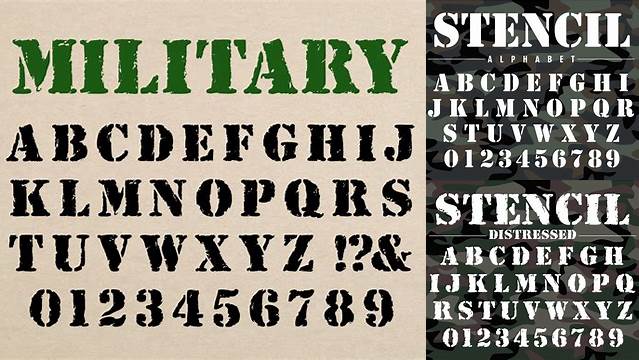
Free Military Stencil Font Generator: Create Bold Designs
Hey everyone! Ever wanted to create designs that have that awesome, rugged military look? Well, you're in luck! We're diving deep into the world of the free military stencil font generator, a super cool tool that lets you make eye-catching text for all sorts of projects. Whether you're designing a poster, crafting a unique logo, or just messing around for fun, these generators are your go-to resource. Let's explore how you can easily use these tools and get creative with some killer military-style fonts. Get ready to unleash your inner designer and make some seriously cool stuff!
H2: Understanding Military Stencil Fonts and Their Appeal
Alright, so first things first, what exactly is a military stencil font? Think about those iconic signs and markings you see on military equipment, vehicles, and even buildings. That's the vibe! These fonts are designed with cut-out sections, making them easy to read even when stenciled or spray-painted. They're all about functionality, clarity, and that distinct, no-nonsense aesthetic. The appeal is huge! They're instantly recognizable and evoke a sense of strength, precision, and a bit of old-school coolness. Military stencil fonts have found their way into all kinds of design, from branding and advertising to personal projects and DIY crafts. They're a fantastic way to add a touch of ruggedness and authority to your work. The history behind these fonts is pretty interesting, too. They were born out of the need for durable and easily reproducible markings in the field. Today, that same practicality makes them perfect for everything from creating custom t-shirts to designing websites with a bold, unique edge. Imagine the possibilities! From creating compelling posters to designing personalized gifts. These fonts are incredibly versatile. So, why are they so popular? It's the blend of functionality, style, and history that makes them a winner. If you're looking to add a touch of grit and personality to your designs, military stencil fonts are the way to go.
H3: The History and Evolution of Stencil Fonts
Let's take a trip back in time, shall we? The story of stencil fonts is deeply intertwined with the military. Back in the day, when technology was simpler, the need to quickly and accurately mark equipment and supplies was paramount. Stencils were the solution. These weren't just any fonts; they were specifically designed to be easily replicated using stencils. This meant cut-out sections in the letters, making them ideal for spray-painting or applying ink through a stencil. The evolution of these fonts is fascinating. Early versions were very functional, designed for speed and clarity. As time went on, designers began experimenting with different styles, adding personality and flair. These weren't just about practicality anymore; they were about visual impact. Think about the different variations. You’ve got your classic, bold stencil fonts and also more stylized versions with unique shapes and details. Military stencil fonts have even influenced other design fields, becoming popular in areas like street art, graphic design, and even fashion. They've been reinterpreted and reimagined for contemporary designs. The history of these fonts reveals a lot about how design adapts to needs and trends. The modern popularity of these fonts shows how they've moved from strictly functional tools to design staples, appreciated for their distinctive look and versatility. From military bases to modern design studios, the story of the stencil font is an awesome example of how something created for one purpose can evolve and find new life in the world of art and design.
H2: Exploring the Features of a Free Military Stencil Font Generator
Okay, so now that you know what military stencil fonts are, how do you actually use one? That's where a free military stencil font generator comes in! These online tools are designed to make the process super easy. You just type in your text, choose your preferred font style, and the generator does the rest. The features vary from generator to generator, but most offer a range of customization options. You can often adjust the font size, spacing, and even the thickness of the lines. Some generators also let you select from different stencil styles, like single-line or double-line. Imagine the possibilities. You could experiment with different fonts until you get the perfect look. The beauty of these generators is their user-friendliness. They're usually web-based, so you don't need to download any software. The best ones offer a preview of your text, so you can see exactly how it will look before you download it. This lets you tweak things until you're completely satisfied with the result. Generators often provide different file formats for your designs like PNG, JPG, or SVG. Having those options means you can use your stencil fonts in a lot of different projects. Whether you need to add a special touch to your website or print a poster, these features have you covered. These features are fantastic for both beginners and pros. The tools are straightforward to use, so anyone can create fantastic designs. If you need to create something bold and eye-catching, a free military stencil font generator is your best friend.
H3: Key Customization Options to Look For
When choosing a free military stencil font generator, what should you look for? Customization is key! The best generators give you plenty of options to tailor your text to your exact needs. First off, font size is a must-have. You need to be able to adjust the size to fit your project, whether it's a small logo or a large poster. Next, look for options to adjust the line thickness. Thicker lines will give you a bolder look, while thinner lines are perfect for a more subtle effect. Spacing is another important factor. Being able to adjust the spacing between letters and words can dramatically change the look and feel of your design. Some generators offer even more advanced customization options. You might find options for choosing between different stencil styles, like single-line or double-line stencils. Other generators let you adjust the kerning (the space between individual letters) and leading (the space between lines of text). These features give you full control over your design. Before you commit to a generator, check the preview feature. A good preview lets you see exactly how your text will look before you download it. This saves you time and lets you make adjustments easily. With these options, you can create the perfect stencil font for any project.
H2: Step-by-Step Guide: Using a Military Stencil Font Generator
So, you're ready to jump in and create some awesome designs? Here's how to use a military stencil font generator step-by-step. First, you'll want to find a reliable generator online. Do a quick search, and you'll find plenty of options. Choose one with a user-friendly interface and the features you need. Once you've chosen your generator, type in the text you want to convert to a stencil font. Next, you'll probably need to select your font style. Some generators offer different military stencil font options, so browse through them and pick your favorite. Now comes the fun part: customization. Adjust the font size, line thickness, and spacing. Use the preview feature to see how your changes affect the design. Keep tweaking the settings until you get the look you're after. Once you're happy with your design, it's time to download it. Choose your preferred file format (PNG, JPG, SVG) and save the file to your computer. The whole process is usually super easy and straightforward. You'll be surprised at how quickly you can create professional-looking text with a free generator.
H3: Choosing the Right Text and Font Style
Selecting the right text and font style is a key to making awesome designs with a military stencil font generator. Start by thinking about your project and the message you want to convey. Is your goal to create a bold headline, a subtle logo, or a detailed graphic? The length and content of your text will play a big role. For headlines, keep it concise and impactful. For logos, choose something memorable and representative of your brand. With shorter texts, you have more freedom to experiment with different fonts and styles. If you're creating a longer body of text, readability becomes even more important. Pick a font that's easy to read at different sizes. Once you have the text ready, the next step is to choose the font style. Generators often have a range of military stencil font options. Browse through the different styles and find one that fits your project. Consider the overall look and feel you want to achieve. If you want something rugged and imposing, go for a bold, thick font. If you're aiming for a more subtle look, choose a thinner, cleaner style. Test out different fonts. Play around with a couple of options, and check how they look with your text. Keep in mind the context. A font that works well for a website might not be the best choice for a printed poster. Experimentation is key here. By carefully selecting the right text and font style, you can create designs that are both visually appealing and effective at communicating your message.
H3: Customizing Your Stencil Font: Size, Spacing, and Thickness
Alright, now you know how to select the text and font style. The next step is to customize it! This is where you can really make your design your own. The first thing to play with is the font size. Make your text big or small to suit your needs. Size is very important because it affects the overall impact of your design. A large font can be super eye-catching on a poster, while a small font is perfect for a logo. Next, consider the spacing. Adjusting the spacing between letters and words can significantly impact the look and feel of your design. Tight spacing can create a compact, solid look, while looser spacing can make your text more open and airy. It’s all about your personal preference and the message you are trying to convey. Most generators will provide settings for adjusting the line thickness. This is the width of the lines that make up your stencil font. Thicker lines are perfect for a bold, attention-grabbing look, while thinner lines can add a touch of subtlety. Adjusting the thickness can drastically alter the mood of your design. You might also see options to adjust the kerning and leading. Kerning is the space between individual letters. Leading is the space between lines of text. Fine-tuning these settings allows you to make the text visually appealing. The more you experiment with these controls, the better you'll get at creating the perfect design. The best part is that you can try out different settings in real-time and see the results instantly.
H3: Downloading and Using Your Stencil Font Designs
So you've designed your text, customized the font, and it looks awesome. Now what? Time to download and use it! The generator will give you options for downloading your design. Choose the file format that works best for your needs. Popular options include PNG, JPG, and SVG. PNG is often the best choice for web graphics because it supports transparency. This means you can place your stencil text over any background without a white box around it. JPG is another great option, especially for images and photos. However, it doesn't support transparency, so it's not ideal if you need your text to blend seamlessly with a background. SVG files are vector-based, which means they can be scaled to any size without losing quality. This is great if you're planning to print your design, especially for larger projects like posters or banners. Before you download, make sure you understand the license for the font. Some fonts are free for personal use but require a license for commercial use. You might want to consider where you'll be using the design. If you're making a logo, it might be a good idea to download an SVG. If you're posting on social media, a PNG may be a better choice. After downloading, you can use the stencil font in different ways. You can add it to a website, create a poster, or design a t-shirt. The possibilities are endless!
H2: Best Practices for Using Military Stencil Fonts Effectively
Alright, you've got your military stencil font generator and you're ready to roll. Here are some best practices to make sure your designs are top-notch! First and foremost, keep readability in mind. Military stencil fonts are visually striking, but if the text is hard to read, it won't be effective. Ensure your text is large enough and that the spacing between letters and words is appropriate. This is super important. Consider the background you're using. If the background is busy, the text might get lost. Experiment with different colors and styles to make your text stand out. Contrast is your friend. For example, if your background is dark, use a light-colored font. If the background is light, use a dark font. Next, choose the right font for the job. There are many different styles of military stencil fonts, from classic to more modern designs. Pick a style that fits your project and the message you're trying to convey. Also, think about the overall design. Stencil fonts look great on their own, but you can also combine them with other design elements to create a more dynamic and engaging design. Simple designs are often the most effective. Avoid clutter and keep things clean and organized. By following these best practices, you can create visually stunning designs that effectively convey your message.
H3: Choosing the Right Colors and Backgrounds
Let's talk about color! The right colors and backgrounds can make or break your design. When you are choosing colors, think about the message you want to convey. Military stencil fonts often look great with classic military colors, like olive green, khaki, and navy. But don't be afraid to experiment. Try different color combinations to see what works best. For example, a black font on a white background is a classic combination that offers high contrast and readability. When selecting a background, consider the overall look and feel of your design. A solid color background is often a great choice. It's simple, clean, and allows your stencil font to stand out. You can also use images as backgrounds, but be careful. Make sure the image isn't too busy, or your text will get lost. Use high-contrast colors to make your text pop, so it's easy to read. Always ensure your text is readable against the background. Experiment with gradients and textures for a unique look. If you're creating a logo, consider using colors that match your brand identity. Color is a powerful design tool. By choosing the right colors and backgrounds, you can make your military stencil font designs even more eye-catching and effective.
H3: Combining Stencil Fonts with Other Design Elements
So, you've got your military stencil font. But why stop there? Combining your stencil font with other design elements can take your work to the next level. Try pairing your font with other fonts! Sometimes a simple pairing can create a great contrast. For instance, you can use a sans-serif font for the body text. This can create a more modern and approachable feel. Or, you can use a handwritten font to add a personal touch. Another great design element is to incorporate imagery. If you're creating a poster for an event, you could add a relevant image or illustration. Think about what would complement your stencil font. You can also incorporate shapes and lines. Using shapes like circles, squares, or rectangles can add structure and visual interest to your design. Create borders and outlines to frame your stencil text. Try playing with the layout. Experiment with different arrangements of text and images. Sometimes the best design is the one that's clean and simple. Don't overload your design with too many elements. Adding just a few well-chosen elements can greatly enhance your design and make it more visually appealing.
H3: Avoiding Common Design Mistakes
Even the best designers can make mistakes. So, let’s cover some common pitfalls to avoid when using military stencil font generators. The first big mistake is using a font that is not readable. If people can't read your text, your message will be lost. Make sure the font size and spacing are appropriate. Also, be mindful of the background. Avoid putting text on a background that is too busy. Ensure there's enough contrast between the text and the background. Another common mistake is using too many different fonts. It can make your design look cluttered and unprofessional. Try to limit yourself to one or two fonts. Another pitfall is to overuse special effects. Avoid applying excessive drop shadows, outlines, or other effects. These effects can sometimes make your design look dated and cheesy. Clutter is a major no-no. Keep your design clean and focused. Don't cram too much information onto one page. Remember, simplicity is often best. Don't neglect the importance of alignment. Ensure that your text and design elements are properly aligned. Poor alignment can make your design look sloppy. By avoiding these mistakes, you can create designs that are professional and visually appealing.
H2: Popular Free Military Stencil Font Generators: A Comparison
Alright, now for the meat of the matter. Which free military stencil font generators are worth your time? There are several excellent options available online, each with its strengths and weaknesses. Let's dive in and compare some of the most popular ones. First, we need to consider ease of use, customization options, and download formats. This helps you make the best choice.
H3: Top-Rated Free Online Generators and Their Features
Let's take a look at some of the top-rated free online generators, shall we? First up, you have Generator A. Generator A is known for its simple interface and user-friendly design. It's perfect if you're a beginner. You can easily type your text, choose from a selection of font styles, and customize the font size. They also have options for downloading in PNG and JPG formats. Next, we have Generator B. Generator B offers a wider range of customization options. You can adjust the line thickness, spacing, and even choose from different stencil styles. It also has a preview feature that lets you see how your text will look before you download it. Generator B offers the flexibility to adjust everything. You can download in multiple formats, including PNG, JPG, and SVG. And finally, we've got Generator C. This one stands out because it has a unique selection of military stencil fonts. If you're looking for something truly authentic, this is the place. It also has options for downloading in various formats, making it very versatile. Remember, the best generator for you will depend on your specific needs. Look for ease of use, customization options, and download format support. Take time to explore different generators and see which ones suit your preferences.
H3: Pros and Cons of Different Generator Options
So, you've got a few generator options. It's time to weigh the pros and cons of each. When choosing a generator, ease of use is a major factor. Some generators have a clean, simple interface, while others have more complex features. Beginners might prefer a simple generator, while experienced designers might appreciate the advanced options. Another thing to consider is the level of customization offered. Some generators have basic customization options (font size, spacing), while others offer advanced settings (line thickness, kerning, leading). Think about the level of control you want over your design. The download format support is another factor. Most generators offer PNG and JPG. If you need your design to be scalable, look for a generator that supports SVG. Then, think about the font selection. Some generators have a limited selection, while others offer a wider range of military stencil fonts. Consider which fonts best suit your design needs. Some generators might offer additional features, such as the ability to add shadows or outlines to your text. Think about whether these features are important to you. Remember, the best generator is the one that meets your needs and design style.
H3: User Reviews and Recommendations for Generators
What do other users say about these generators? User reviews and recommendations can provide valuable insight into the strengths and weaknesses of each. Check out online reviews, forums, and social media groups to get a sense of other people's experiences. Start by looking for generators with consistently positive reviews. The main things people talk about are the ease of use, the quality of the output, and the available customization options. Also, pay attention to any common issues. Do users complain about the download process or the quality of the fonts? Make sure to see if the generators have active support and if they respond promptly to customer issues. User recommendations can be especially helpful. People often recommend generators that they've used and found to be effective. Keep an eye out for designers who share their tips and favorite tools. By reading reviews and recommendations, you'll get a better idea of which generators are the best fit for your needs.
H2: Creative Project Ideas Using Military Stencil Fonts
Ready to put your military stencil font generator to work? There are tons of awesome project ideas to get you started! Here are a few creative ways you can use those fonts.
H3: Designing Posters and Flyers for Events
One of the best uses for military stencil fonts is designing posters and flyers for events! These fonts instantly grab attention and give your design a bold, assertive look. Whether you are promoting a concert, a sports event, or a community gathering, stencil fonts can effectively communicate your message. When designing your poster, start with a strong headline that grabs people's attention. Use the military stencil font to create an impactful title. Then, add other key information like the date, time, and location. Use different fonts or styles to separate the information. A contrasting background can help the text pop. If the background is dark, use a light-colored font. If the background is light, use a dark font. You can also add relevant images or illustrations to support your message. But, don't overload your design with too many elements. Always make sure the text is easy to read. A well-designed poster or flyer can be a great way to promote your event and attract more people.
H3: Creating Unique Logos and Branding Materials
Military stencil fonts are perfect for designing unique logos and branding materials. These fonts convey a sense of strength, reliability, and history. This makes them ideal for brands that want to project these qualities. Start by using the generator to create a logo that represents your brand's values. Then, consider the other elements of your branding materials. Create a consistent look by using the same font across all your marketing materials. Also, think about your target audience. Make sure your branding materials resonate with them. Use the font on your website, social media, and business cards. This consistent branding can help you create a strong and memorable brand identity. Carefully select the colors and images that complement your stencil font. You want to be sure your branding materials clearly reflect your brand. A well-designed logo and branding materials can help you create a memorable brand identity and build trust with your audience.
H3: Customizing T-shirts, Merchandise, and DIY Projects
Time to get crafty! Military stencil fonts can be a great way to customize t-shirts, merchandise, and DIY projects. These fonts are perfect for creating personalized items that show off your style. You can easily create custom t-shirts by designing a design and printing it on fabric. Use the font generator to create text and download it in a format that's compatible with your printing method. Create designs for stickers, mugs, and other merchandise. These make great gifts or can be sold online. You can also use stencil fonts for DIY projects like signs, wall art, and home decor. Get creative and think outside the box! These fonts are great for creating customized items and showcasing your creative flair.
H2: Tips and Tricks for Maximizing Your Design Results
So, you've got the tools, you've got the ideas, but how do you make sure your designs really stand out? Here are some tips and tricks to maximize your design results when using a military stencil font generator.
H3: Optimizing Text for Readability and Impact
Readability is key. If people can't read your text, your message is lost. Make sure your text is large enough to be easily read. Consider the viewing distance. Think about where your design will be displayed. Is it on a website, a poster, or a t-shirt? Adjust your font size accordingly. You also need to make sure that the spacing is appropriate. The spacing between letters and words can greatly impact readability. In general, you want to avoid crowded text. Make sure the text is clear and easy to understand. Consider using all caps or a mix of upper and lower case letters. The contrast between the text and the background is essential for optimal readability. If you want to make an impact, think about the overall design. Choose the font and style that best conveys your message. By following these tips, you can make your designs both effective and easy to read.
H3: Leveraging Color Theory and Contrast
Color theory and contrast play a big role in creating great designs. Using the right colors can enhance the visual appeal of your design. Choosing contrasting colors makes your text stand out. This makes your message more noticeable. You can use a color wheel. Using colors across from each other can create high contrast. If you are using a dark background, use a light-colored font. You can also play with different colors to create different moods. When you combine color theory and contrast effectively, you will enhance the look and feel of your design.
H3: Troubleshooting Common Design Challenges
Sometimes, things don't go to plan. Here are some tips on troubleshooting common design challenges. One issue is poor readability. If your text is hard to read, go back and adjust your font size, spacing, and color contrast. Another common issue is a cluttered design. If there are too many elements, simplify your design. Try to eliminate any unnecessary elements. You can also have alignment issues. Always make sure your text and design elements are aligned. You also might have a printing problem. Always check your file before printing. These challenges are common. If you pay attention to them, you can create professional-looking designs.
H2: The Future of Military Stencil Fonts in Design
Where are military stencil fonts headed in the future? As design trends change, these fonts will likely evolve too. It's exciting to think about the possibilities. Let's take a peek into the future.
H3: Emerging Trends and Innovations in Font Design
Font design is always evolving. New trends and innovations are constantly emerging. Expect to see further experimentation with the design of military stencil fonts. There is a likely emergence of new styles that blend tradition with contemporary design. This might include more detailed designs or designs that are more expressive. We can expect to see more use of technology, such as AI, for font design. We will see more interactive and dynamic fonts. And, in the future, designers will continue to explore creative ways to use military stencil fonts. The future of font design will be an exciting blend of creativity and technology.
H3: The Role of AI and Technology in Font Generation
AI and technology are changing the way we design fonts. AI can be used to automate some aspects of the design process. AI can also be used to generate new fonts and styles. This can allow designers to create unique fonts more quickly. In the future, we might see more AI-powered font generators that let users create customized fonts with ease. These tools will give designers more control over their work. We should embrace these technological changes. AI and technology can also help with font testing and optimization. Technology will play an increasingly important role in font design.
H3: Predictions for the Continued Popularity of Stencil Fonts
Military stencil fonts have stood the test of time and are still popular. This is likely to continue. They have a timeless look. They have a strong association with history, and there is a continued need for fonts that are clear and easy to read. With this, military stencil fonts can continue to be used in a broad range of design projects. I predict they will be used everywhere. The ongoing evolution of these fonts and advancements in font technology will help to keep them relevant. Military stencil fonts will continue to be used. They'll continue to be used in design. This will ensure their place in the future of design.